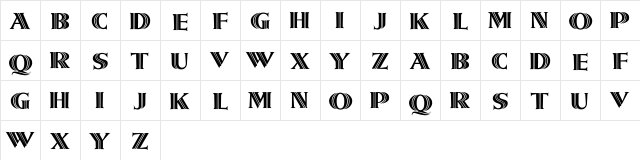
Sherrington Regular
Design Context for Sherrington Typeface
Sherrington is a composed and adaptable typeface that performs quietly and consistently across a wide range of design contexts.